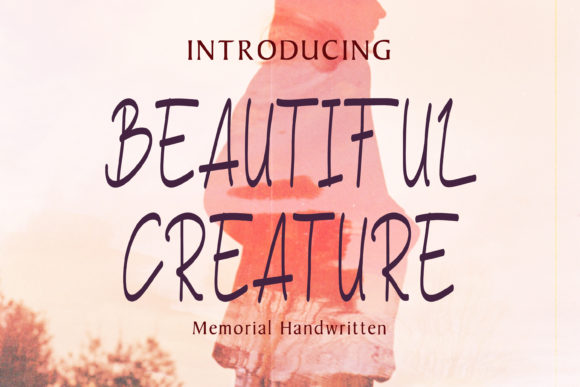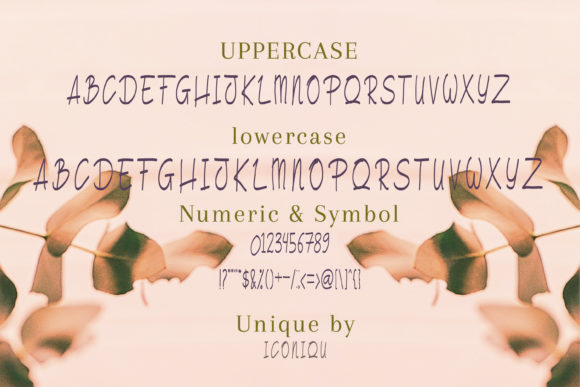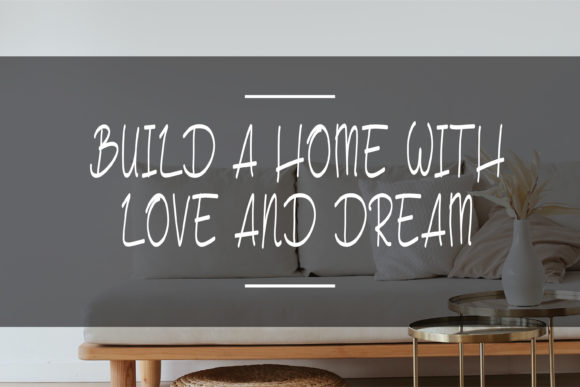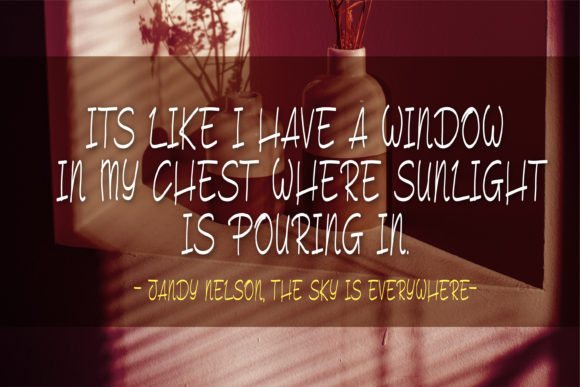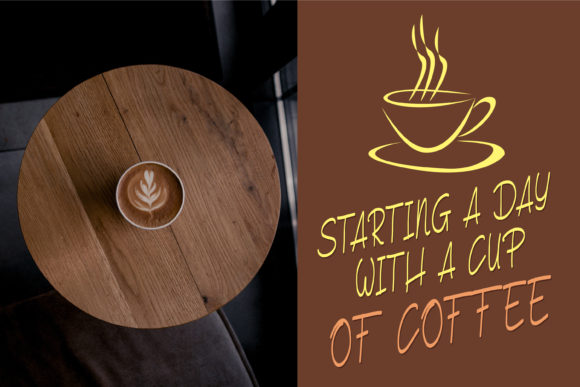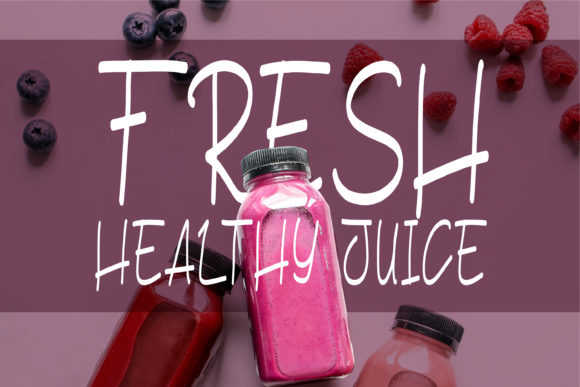
Beautiful Creature Font
About Beautiful Creature Font
Beautiful Creature is a thin and fun handwritten font. Add it to your most creative ideas and notice how it makes them come alive!